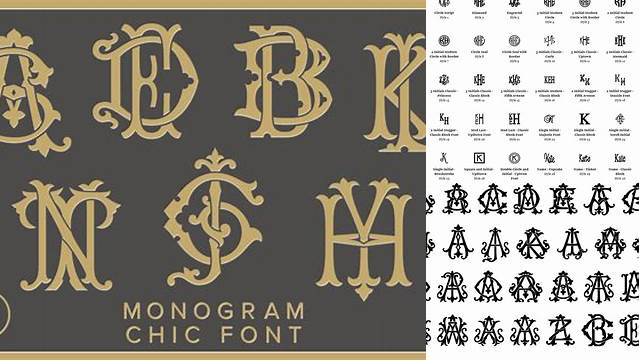
Monogram Chic Font: Free Download For Stylish Designs
Hey guys! Are you looking to add a touch of elegance and personalization to your designs? Look no further! Monogram chic fonts are the perfect way to create stunning logos, invitations, and other creative projects. In this article, we'll dive deep into the world of monogram chic fonts, exploring what makes them so special, where you can find them for free download, and how to use them effectively in your designs. So, let's get started and unlock the potential of these stylish fonts!
What Makes Monogram Chic Fonts So Special?
Monogram chic fonts possess a unique charm that sets them apart from other typefaces. Their intricate designs and elegant flourishes add a touch of sophistication to any project. These fonts are specifically designed for creating monograms, which are decorative arrangements of initials. Monograms have been used for centuries as a symbol of identity and are often seen on stationery, clothing, and other personal items.
Monogram fonts typically feature interlocking letters or letters with ornate details, making them visually appealing and memorable. The beauty of monogram chic fonts lies in their versatility. They can be used for a wide range of applications, from creating classic and traditional monograms to designing modern and contemporary logos. Whether you're working on a wedding invitation, a business card, or a website header, a monogram chic font can help you achieve a sophisticated and personalized look. The flexibility they offer allows designers to experiment with different styles and create unique designs that reflect their personal taste or the brand identity they are working with. Moreover, the aesthetic appeal of these fonts enhances readability while adding a decorative touch, making them ideal for projects where visual appeal is as important as clear communication. The intricate details within each character ensure that the final design element stands out, providing a strong visual impact that captures attention and conveys elegance.
How to Use Monogram Chic Fonts Effectively
Now that you've found the perfect monogram chic font, it's time to put it to use! Creating stunning monograms is all about balance, spacing, and choosing the right font for your project. Here are some tips and tricks to help you use monogram chic fonts effectively:
Choosing the Right Font: The first step in creating a beautiful monogram is selecting the right font. Consider the overall style and tone of your project. A classic serif font might be ideal for a traditional wedding invitation, while a modern sans-serif font could be a better choice for a contemporary logo. Look for fonts that have a balanced and harmonious letter design. The letters should complement each other and create a cohesive monogram. If you're working on a vintage-inspired design, consider using a script font with elegant swirls and flourishes. For a more minimalist and modern look, opt for a clean and simple sans-serif font. It's also important to consider the legibility of the font. While ornate fonts can be beautiful, they may not be the best choice if your monogram needs to be easily readable at a small size.
Arranging the Letters: The arrangement of letters in a monogram is crucial for its visual appeal. Traditionally, monograms feature the last name initial in the center, with the first name initial on the left and the middle name initial on the right. However, there are many creative ways to arrange the letters. You can overlap the letters, intertwine them, or even create a circular monogram. Experiment with different arrangements to find what looks best with your chosen font and initials. Pay attention to the spacing between the letters. The letters should be close enough to create a sense of unity, but not so close that they overlap too much and become illegible. Use kerning tools in your design software to fine-tune the spacing between individual letters. Consider the overall shape of the monogram. A well-balanced monogram will have a pleasing symmetry and visual flow. If your initials create an awkward shape, try rearranging them or using a different font.
Adding Flourishes and Embellishments: To enhance your monogram, consider adding flourishes and embellishments. These can include swirls, curls, leaves, or other decorative elements. Use these elements sparingly to avoid overwhelming the design. Flourishes can add a touch of elegance and sophistication to your monogram, but too many can make it look cluttered and busy. Consider the overall style of your project when choosing embellishments. If you're working on a vintage-inspired design, ornate flourishes may be appropriate. For a modern design, stick to simple and minimalist embellishments. Experiment with different colors and textures to add depth and visual interest to your monogram. Gold foil, embossing, or letterpress printing can elevate your monogram and give it a luxurious feel. Remember to keep the overall design balanced and harmonious. The embellishments should complement the letters, not overshadow them.
Color Considerations: Color plays a significant role in the overall impact of your monogram. Choose colors that complement the font and the project's overall aesthetic. Classic choices like black, white, and gold exude elegance, while bolder colors can add a modern twist. Consider the context in which the monogram will be used. For instance, a monogram on a wedding invitation might benefit from soft, romantic colors, while a corporate logo might call for more professional and brand-consistent hues. Experiment with color gradients and shades to add depth and dimension to the monogram. Layering colors can create interesting visual effects, but ensure that the colors work well together and do not clash. Think about the contrast between the letters and the background. A high-contrast combination ensures that the monogram stands out and is easily readable. Also, keep in mind that colors can evoke different emotions and convey different messages. Choose colors that align with the intended message and style of your design.
Monogram chic fonts are a fantastic way to add a touch of elegance and personalization to your designs. With the vast array of free fonts available online and the creative possibilities for monogram design, you can create stunning monograms for any project. Remember to choose the right font, arrange the letters thoughtfully, and add flourishes and embellishments sparingly. So, go ahead and unleash your creativity with monogram chic fonts and elevate your designs to the next level!